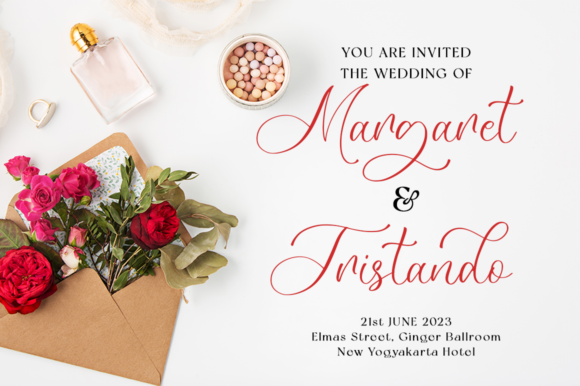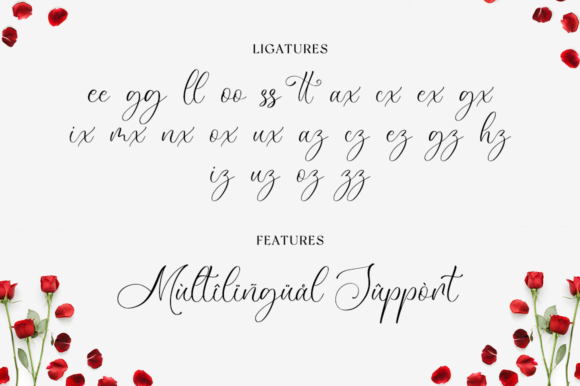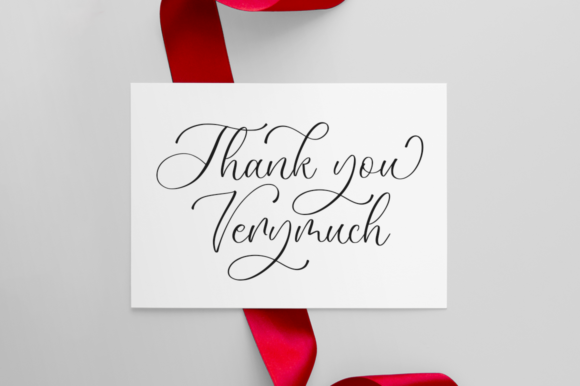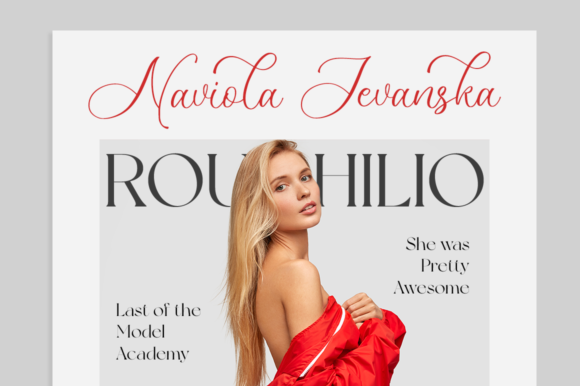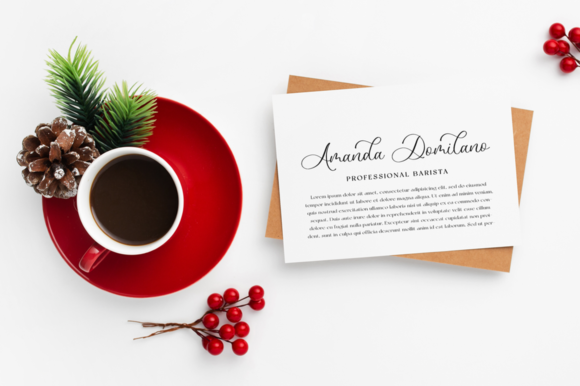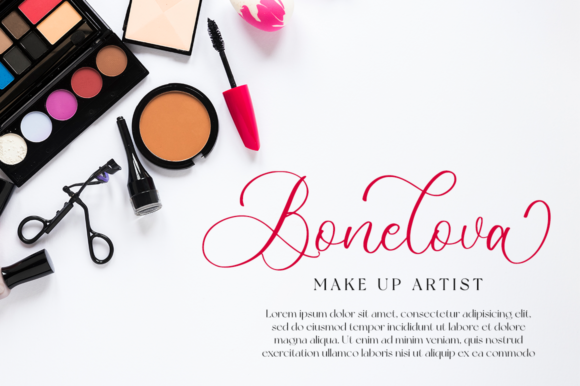
About Romantic Rossie Font
Romantic Rossie is an elegant and dainty handwritten font that features sweet and delicate swashes. This original look will appeal to a wide range of crafty ideas. Romantic Rossie is PUA encoded which means you can access all of the glyphs and swashes with ease!